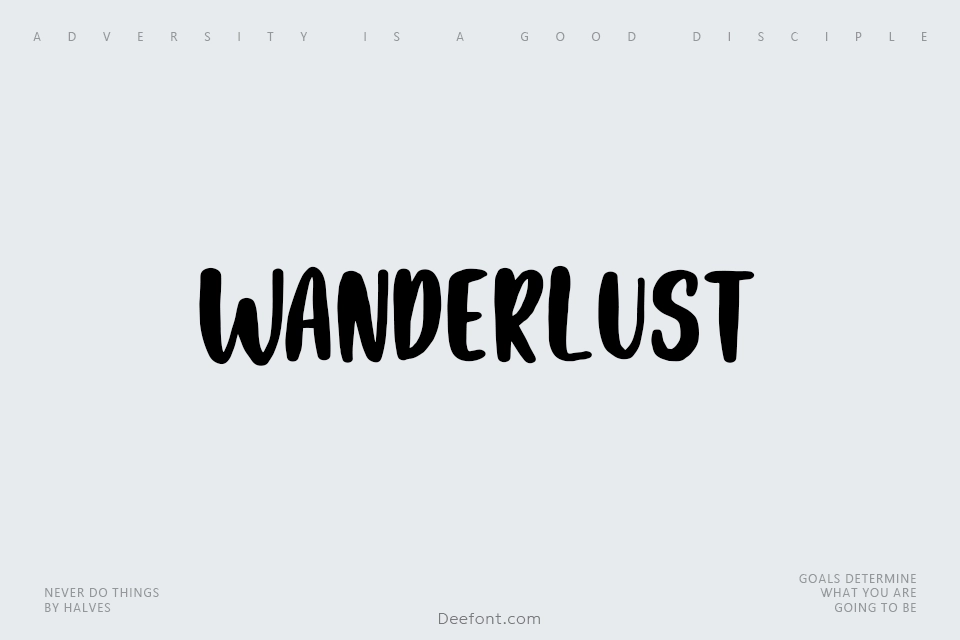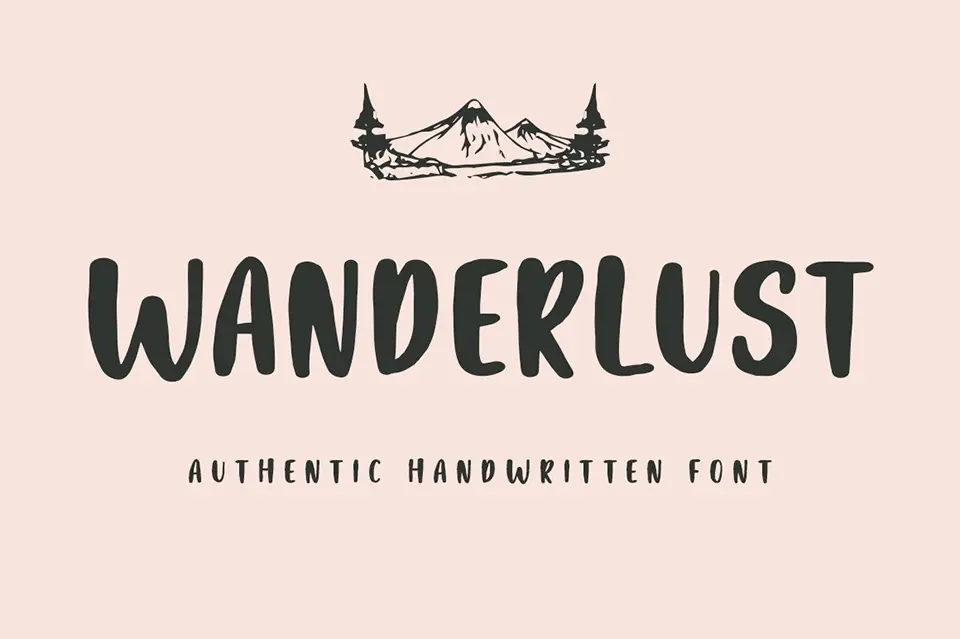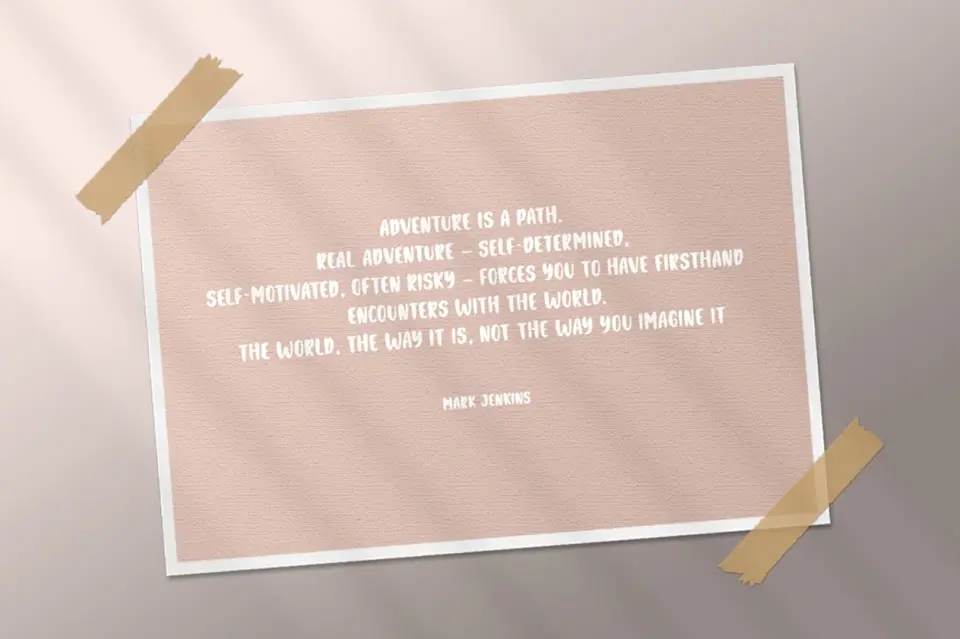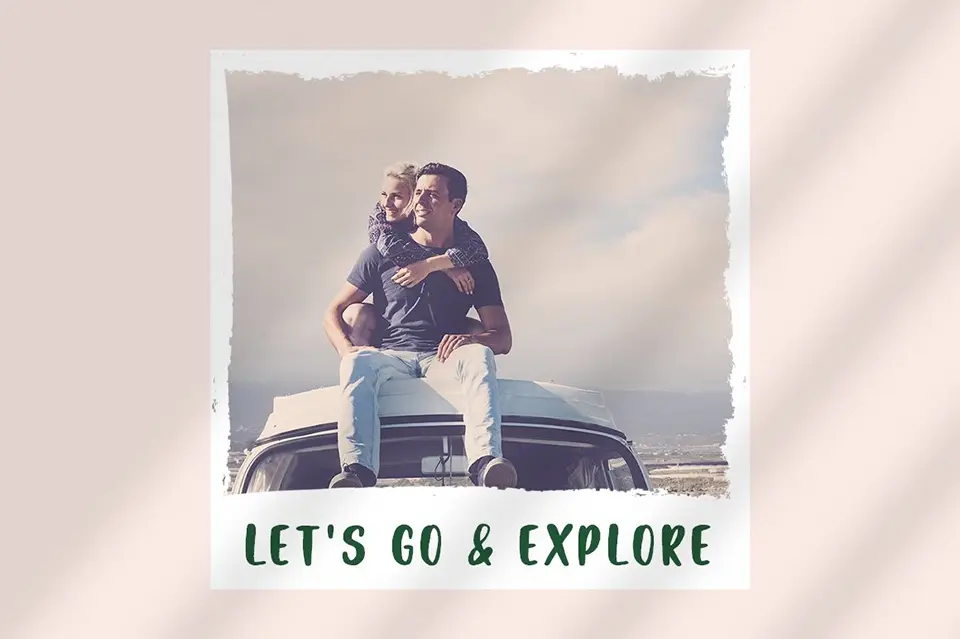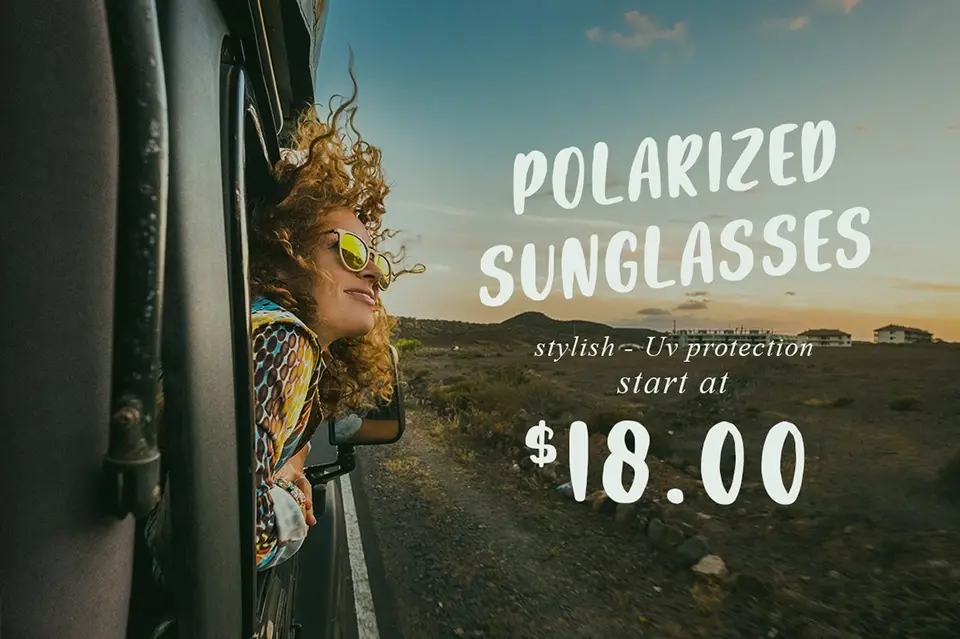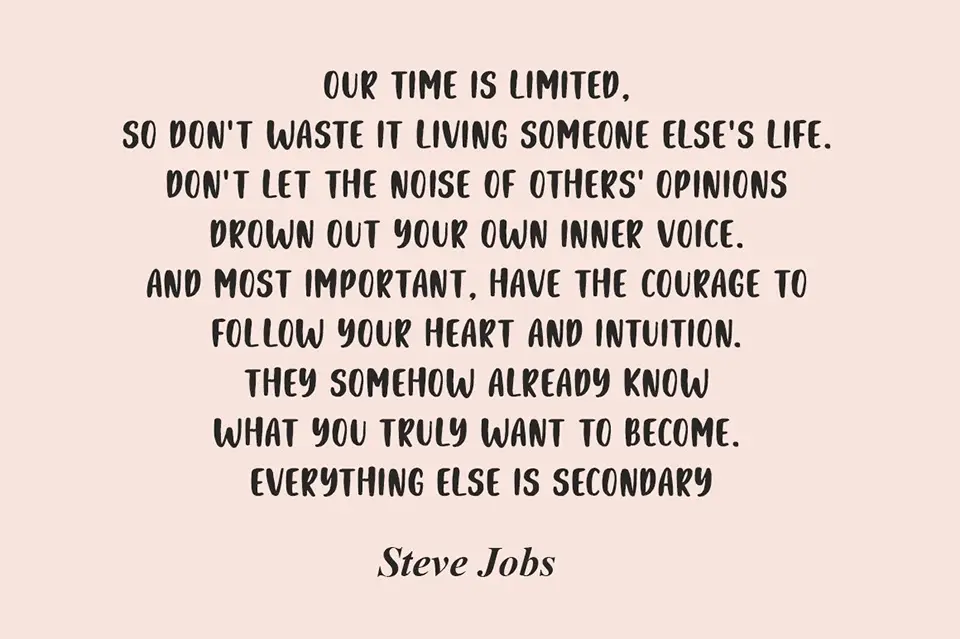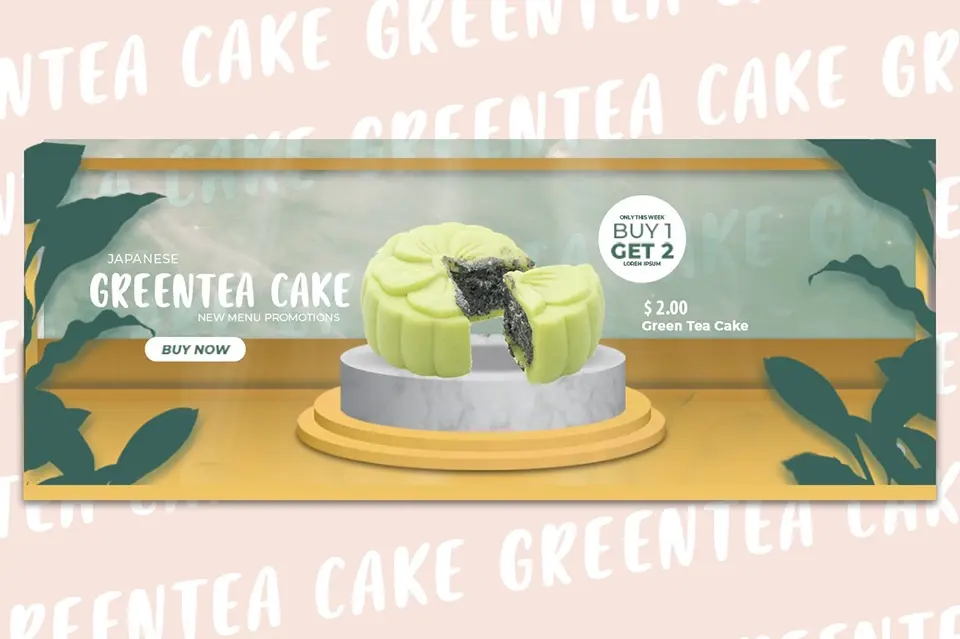
Wanderlust Font
Wanderlust is an elegant script font designed for creative typography projects. This charming handwritten-style typeface features fluid strokes and natural letterforms, making it perfect for branding, logos, invitations, and social media content. With its sophisticated yet approachable aesthetic, Wanderlust brings a personal touch to any design project, combining modern sensibility with classic elegance for truly outstanding visual communication.